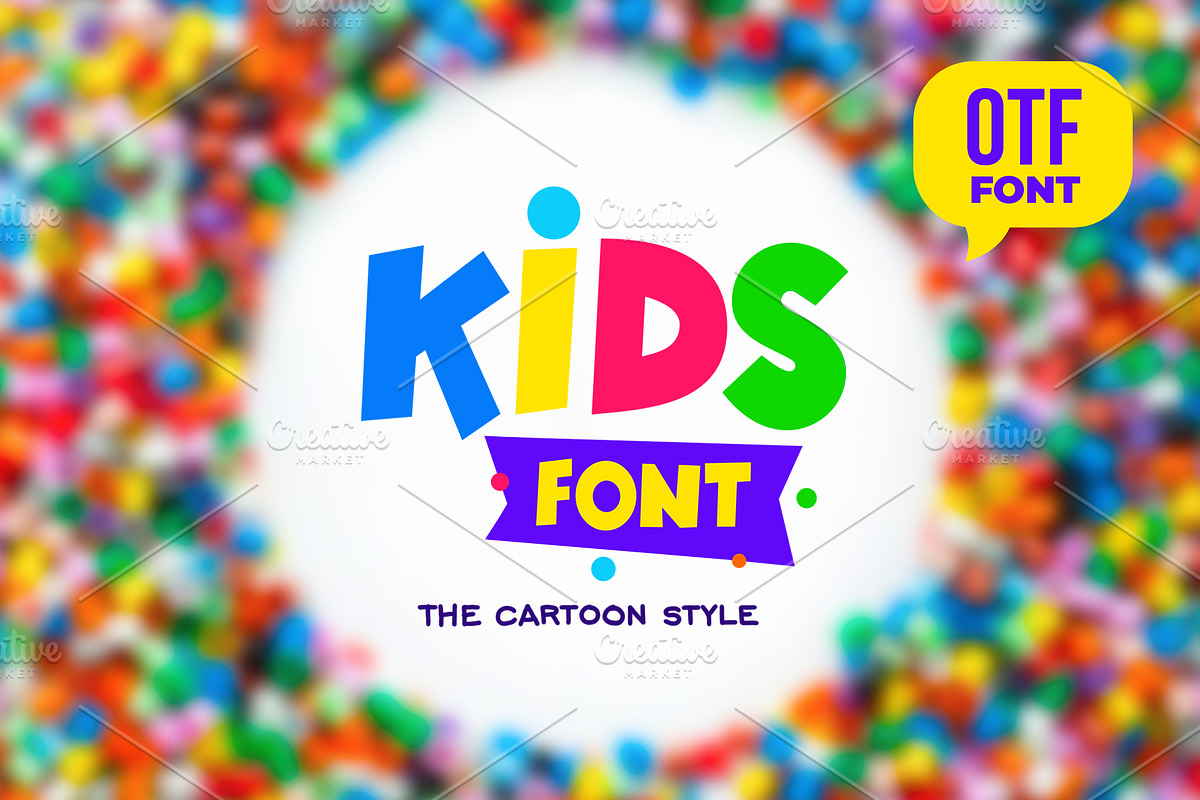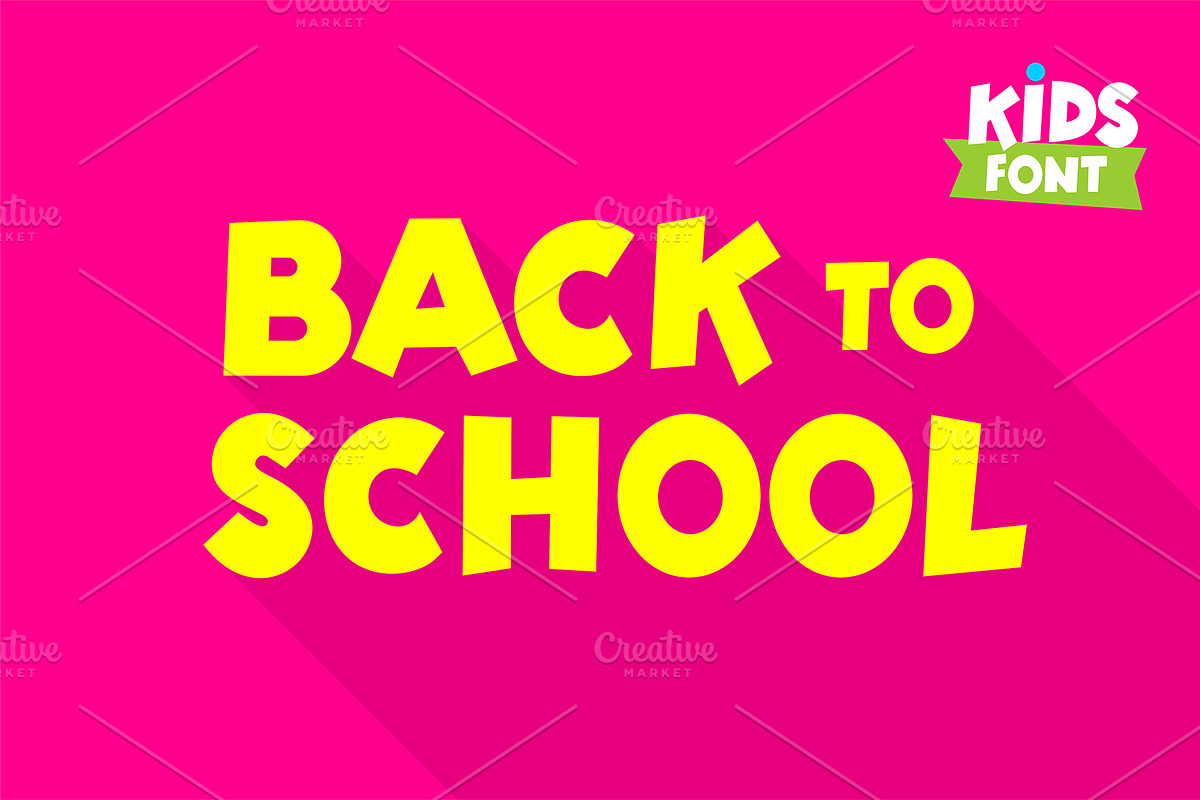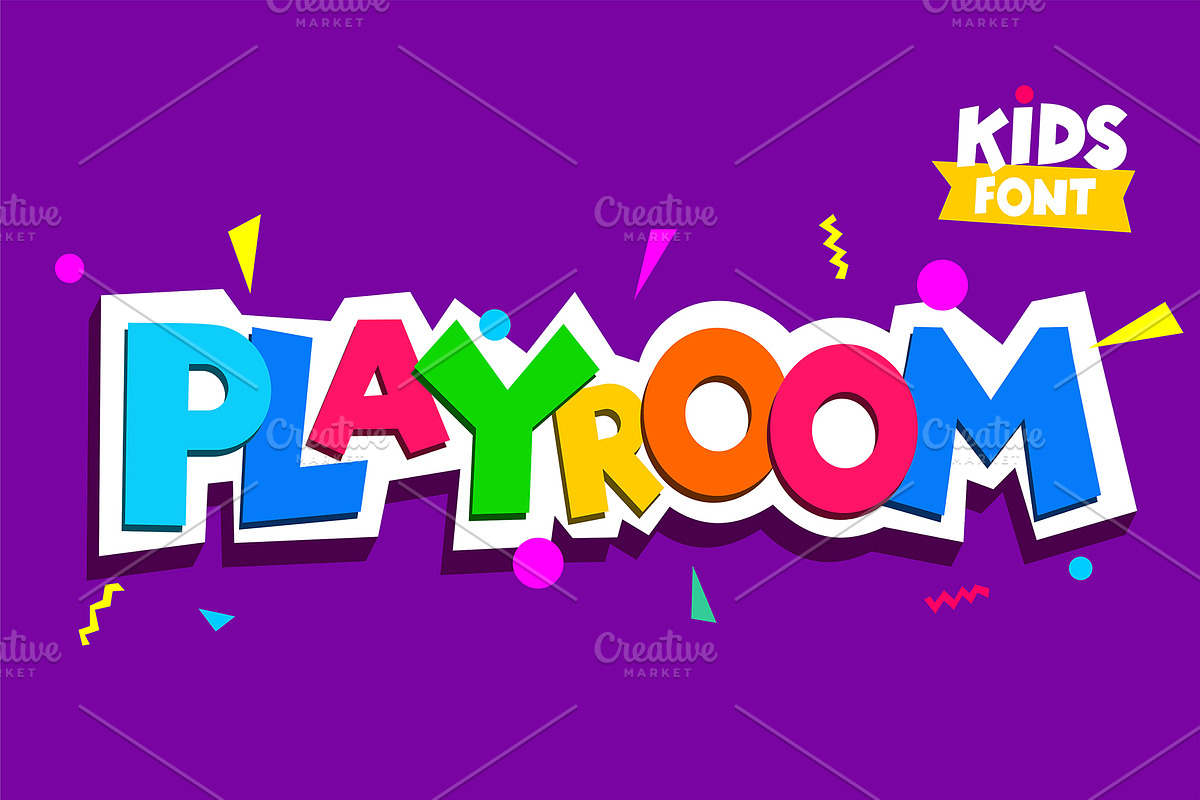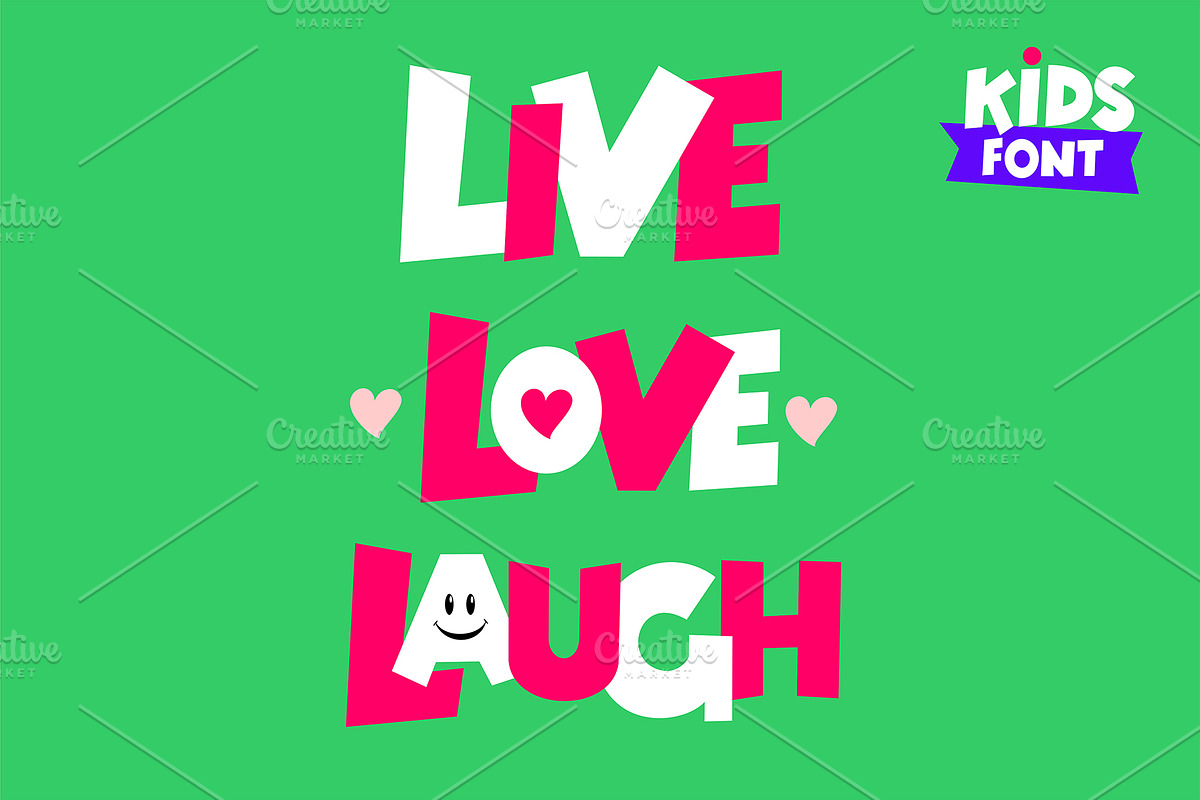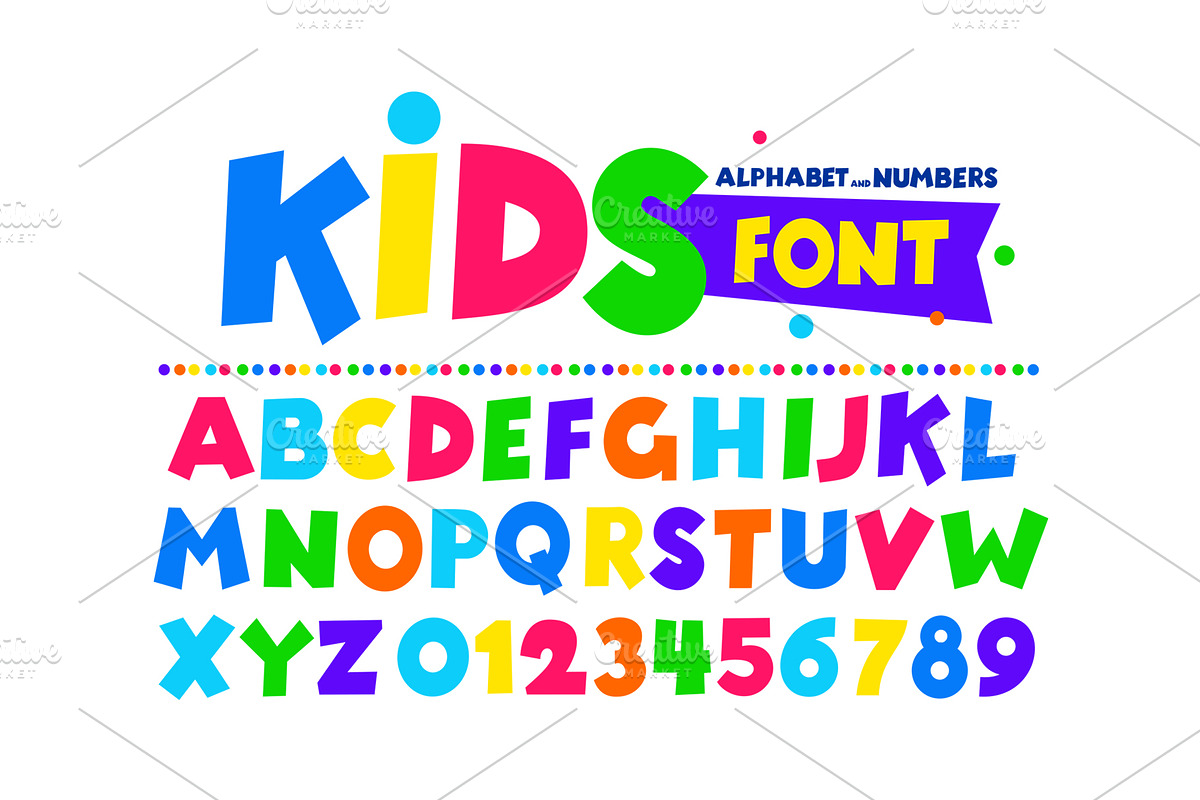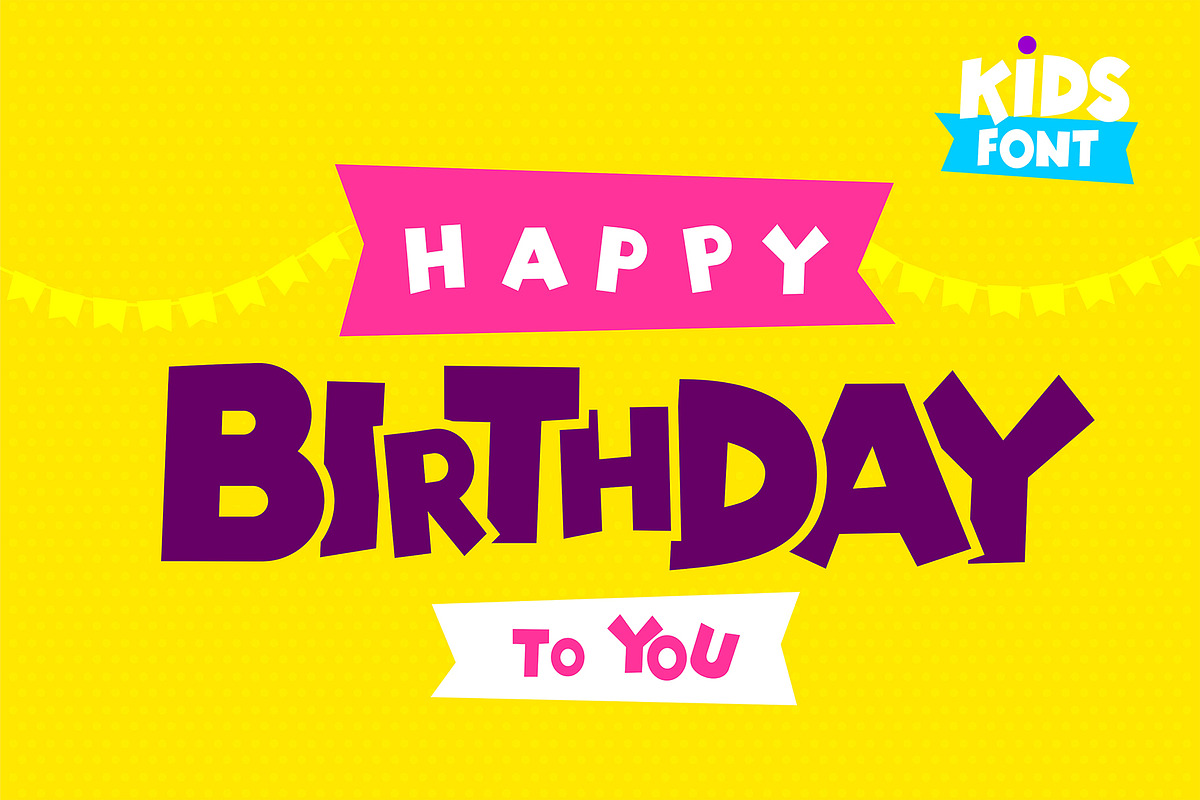
Kids Font otf
Kids font in the cartoon style, alphabet and numbers. Set of multicolored bright letters for inscriptions and your design . Vector illustration. Isolated on white background.
Why Kids Font otf is worth a look
Kids Font otf by Vector photo shop fits naturally into Branding, posters, packaging, typography.